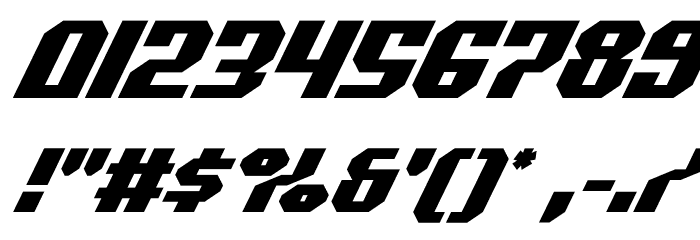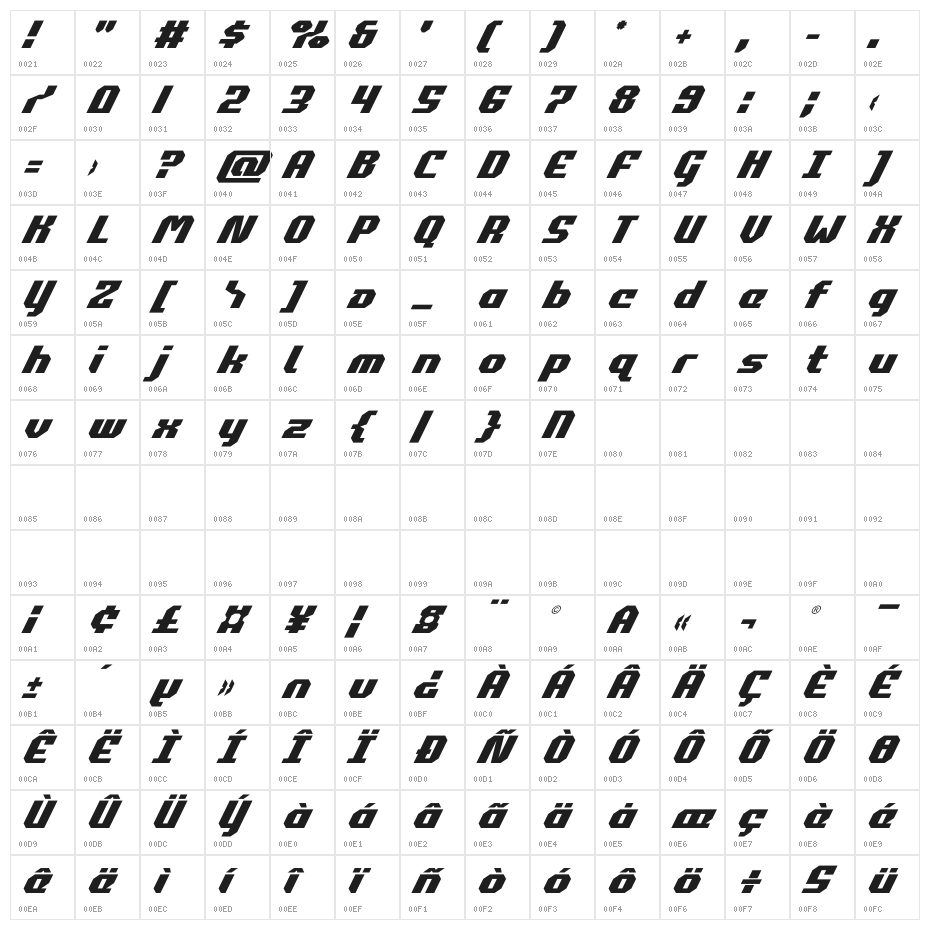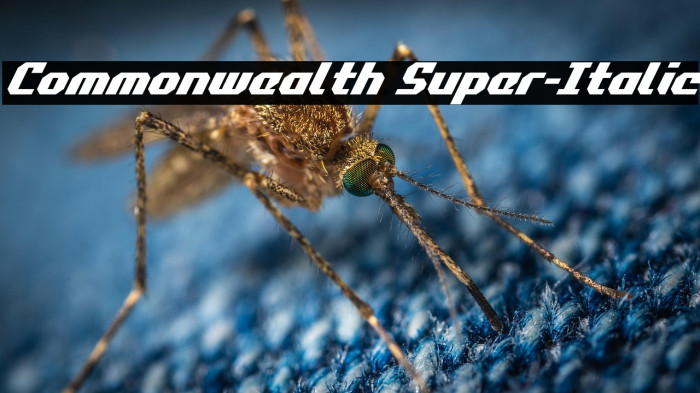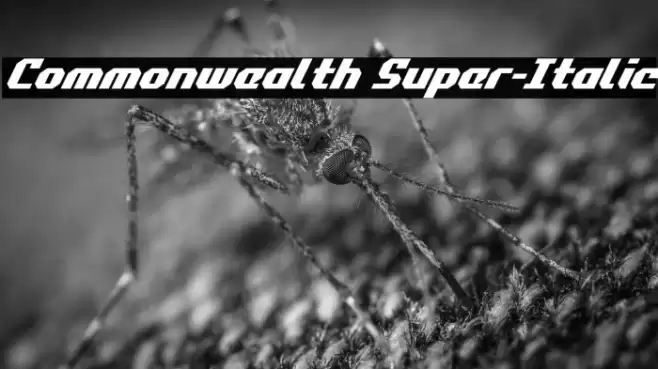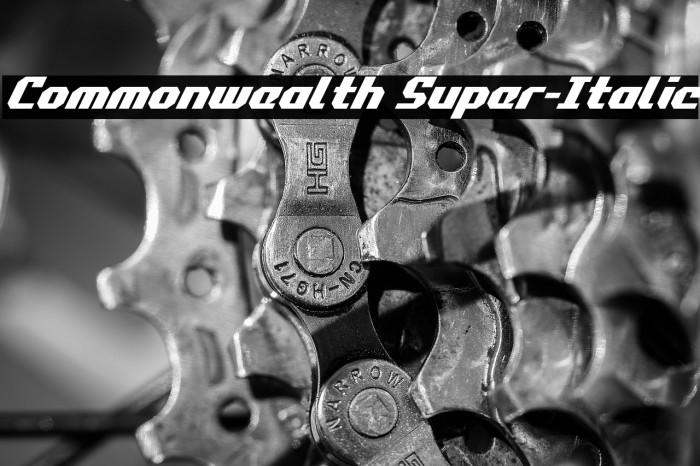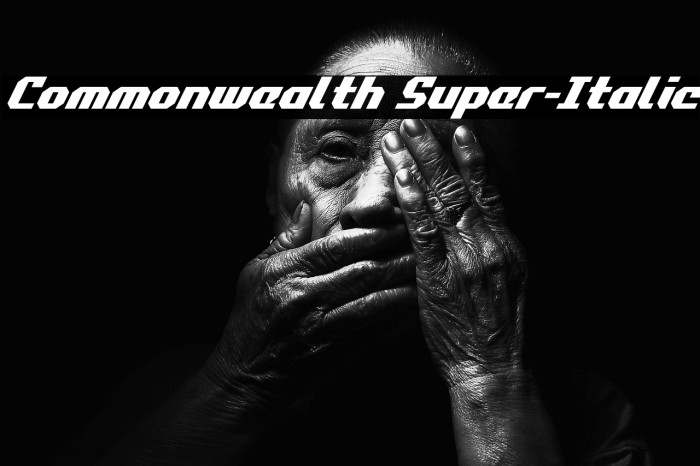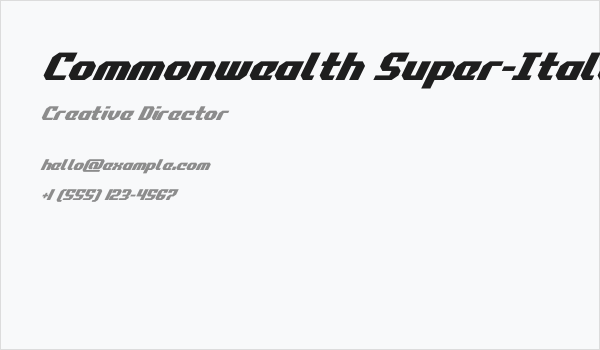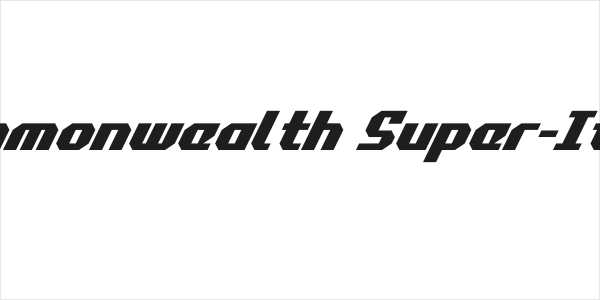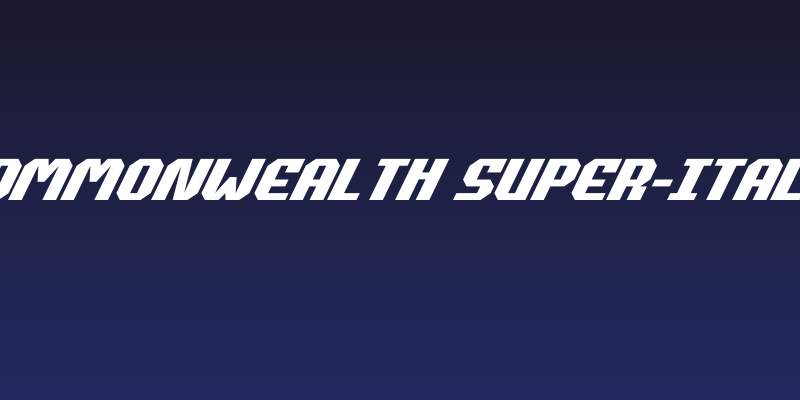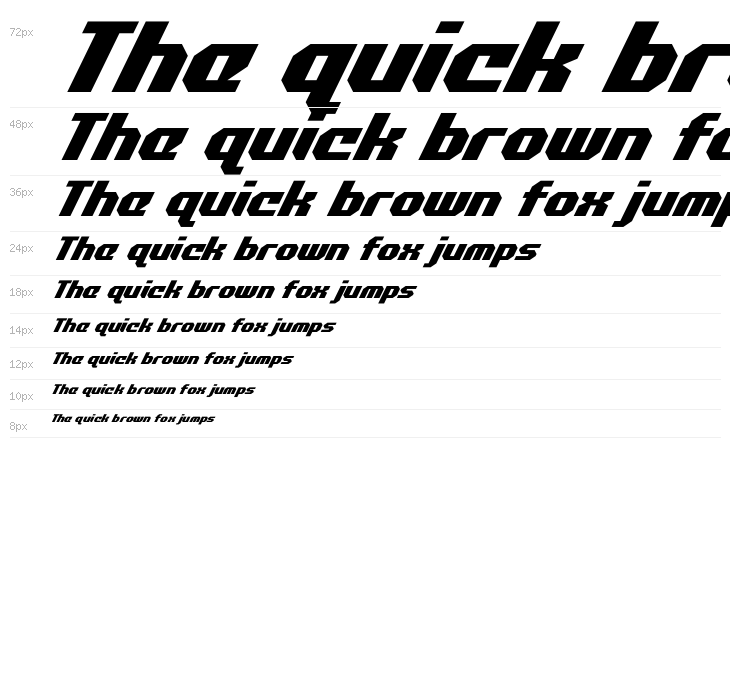
Commonwealth Super-Italic Font
Commonwealth Super-Italic Description
This font features a bold, italicized style with a strong geometric influence. The characters are sharply angled, giving a dynamic and energetic appearance. The uppercase and lowercase letters maintain a consistent slant, enhancing the italic effect. The numbers and special characters follow the same design principles, ensuring uniformity across all glyphs. The font's boldness and angularity make it stand out, suitable for attention-grabbing headlines and modern design projects.